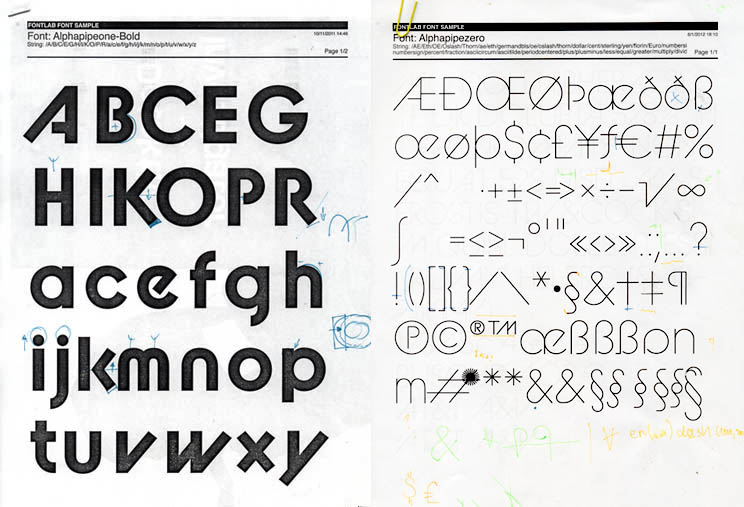
Alphapipe
Jiří Rathouský
BC Alphapipe
Alphapipe is a constructed typeface originally designed in 80’s by Jiří Rathouský. The new version has been redesigned from scratch.